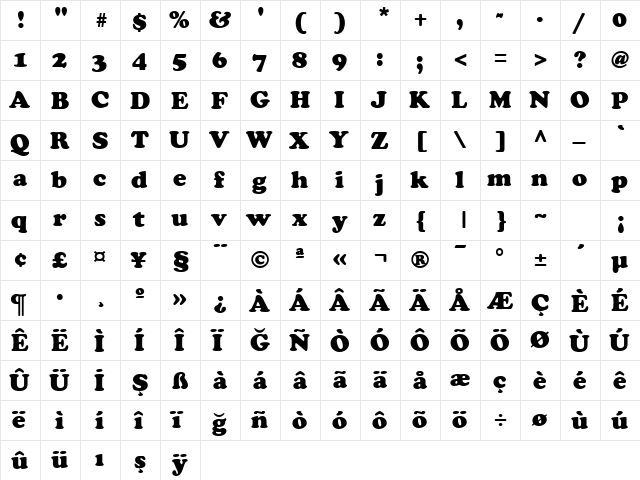
TR BobDylan Regular
Design Context for TR BobDylan Typeface
TR BobDylan offers clean, dependable letterforms without strong stylistic allegiance, making it a practical choice for designers who need flexibility.